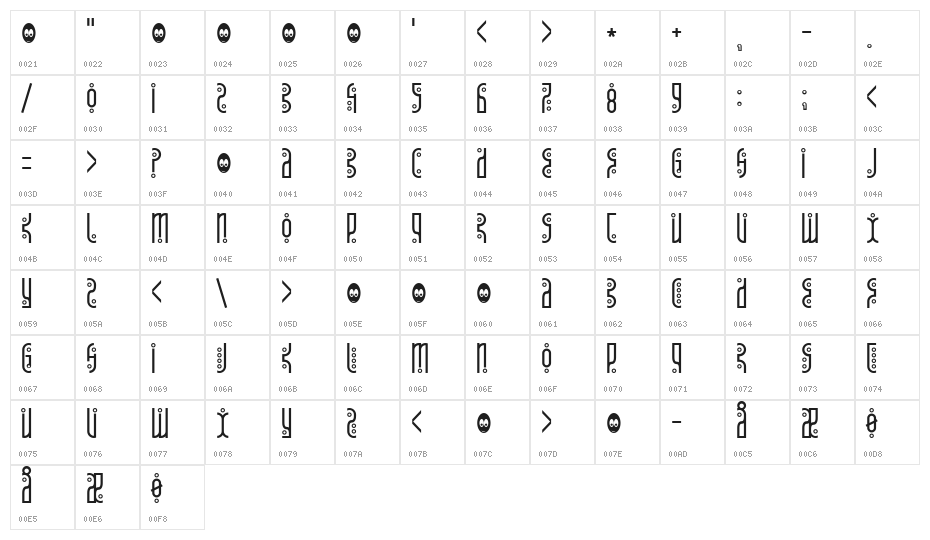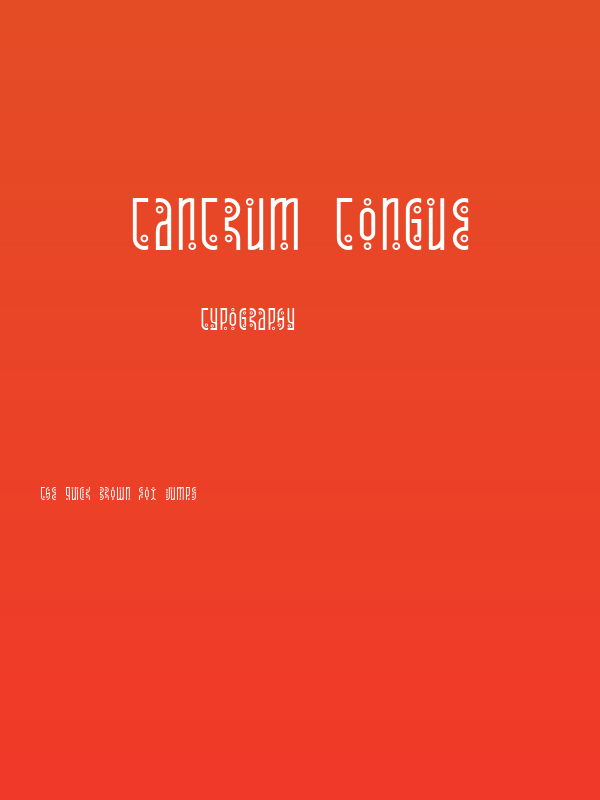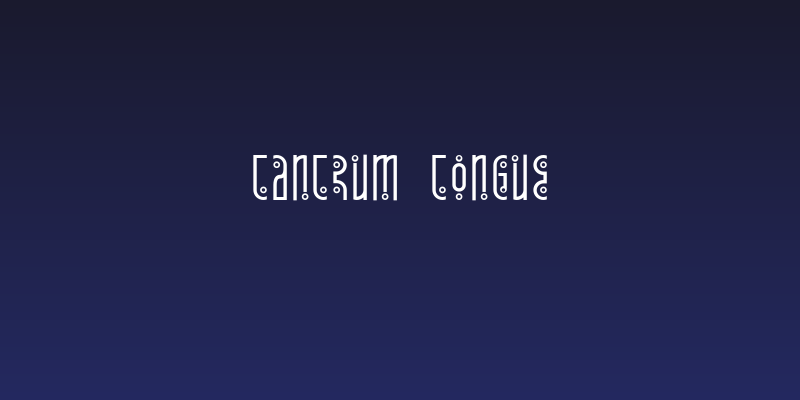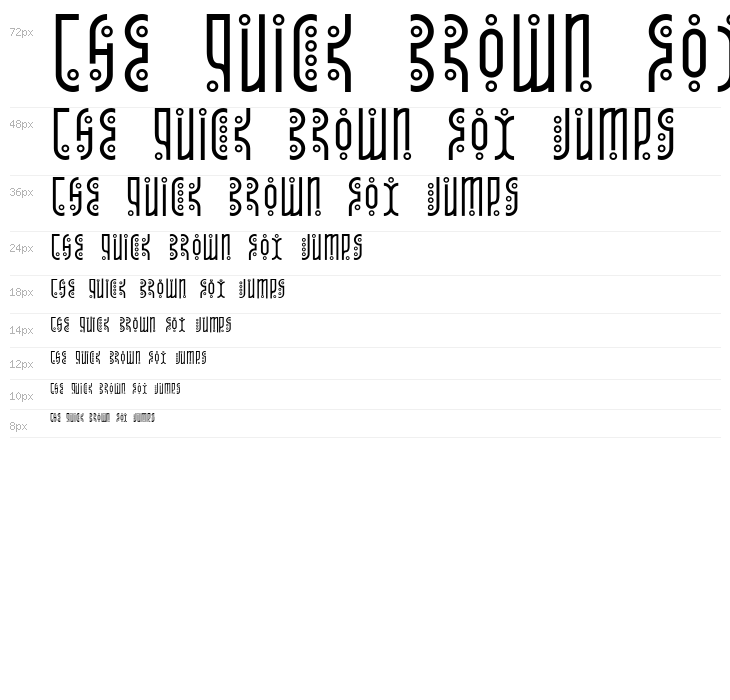
Tantrum Tongue Font
Tantrum Tongue Description
This font features a highly decorative and playful design, characterized by its unique use of circular and dot elements integrated into each character. The letters are bold and have a distinct, whimsical style that combines geometric shapes with a modern twist. The uppercase and lowercase letters maintain a consistent theme, with the lowercase mirroring the uppercase in style but with slightly reduced height. Numbers and special characters follow the same decorative pattern, making the font cohesive across all elements. The overall appearance is eye-catching and suitable for creative projects that require a fun and engaging typeface.
| Proposed Projects | Ideal for children's books, playful branding, posters, and creative invitations. |